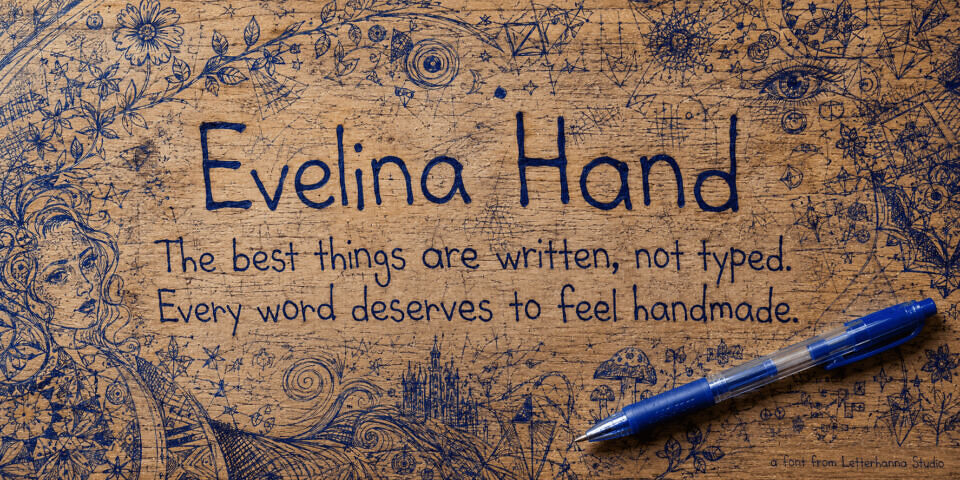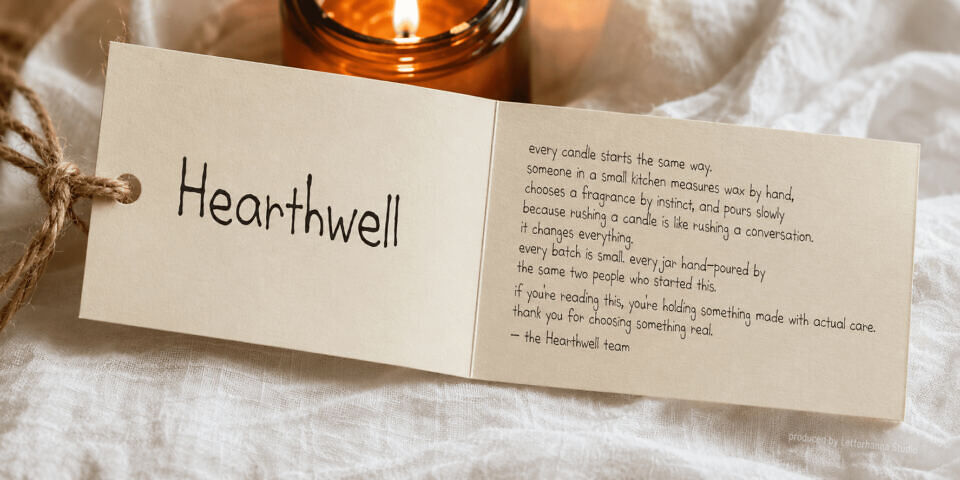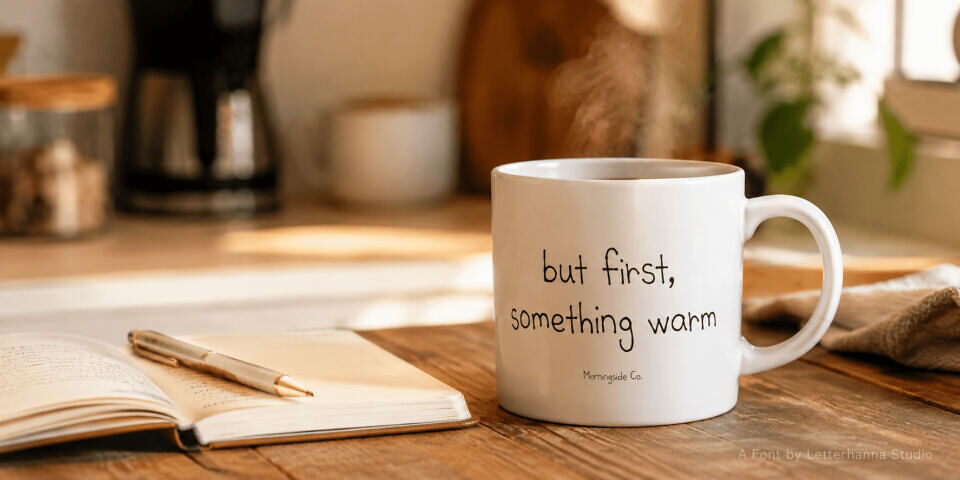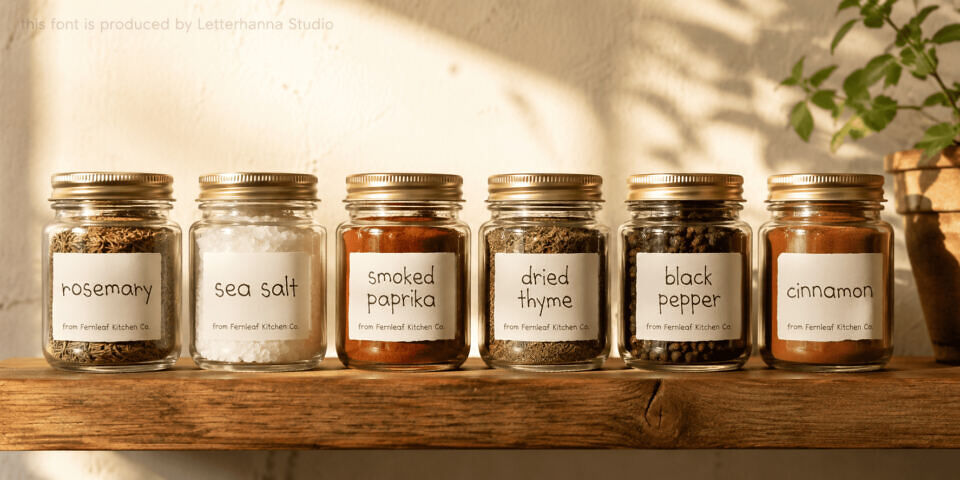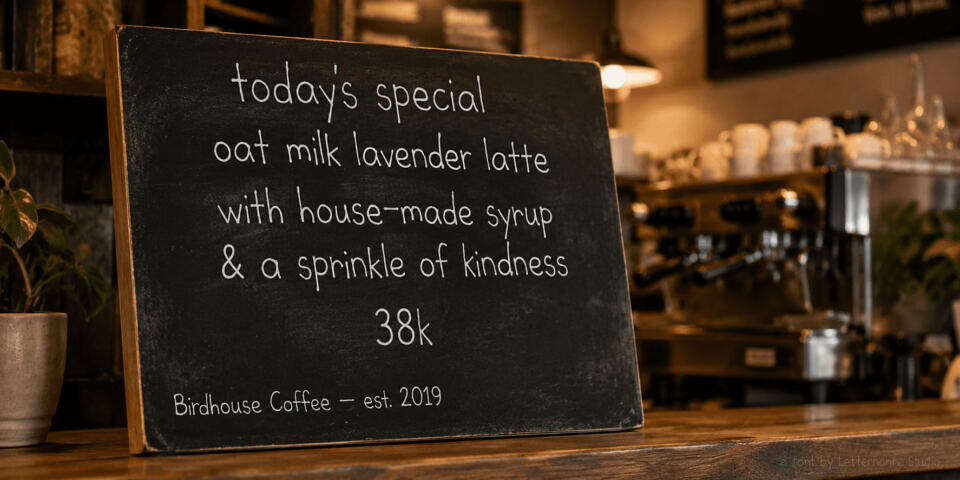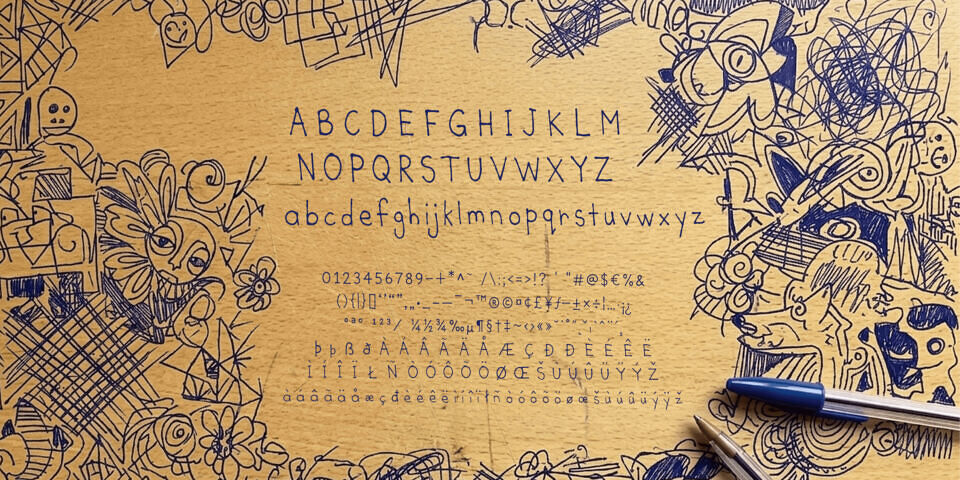
Evelina Hand Font
Immerse your designs in the nostalgic warmth of genuine journaling with Evelina Hand, a charming handwritten display font. This typeface features a beautifully neat, casual print anatomy built with the crisp, uniform lines of a fine-point gel pen.
Standing completely upright along a relaxed baseline, its friendly letterforms balance neat architectural clarity with a comforting, home-cooked personality. Evelina Hand is an extraordinary choice for cozy lifestyle blog layouts, children’s book body text, creative recipe journals, artisanal food packaging, and custom greeting card messages.